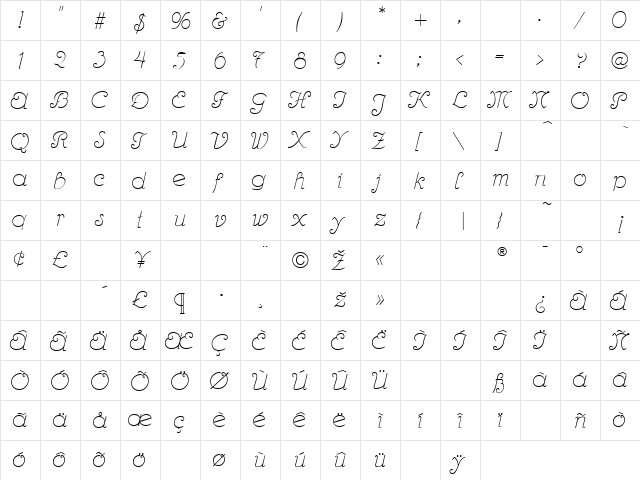
Hanover Regular
Design Context for Hanover Typeface
Hanover is a composed and adaptable typeface that performs quietly and consistently across a wide range of design contexts.
Pro Tip: Pair Hanover with a font of contrasting weight or personality to build a more expressive typographic hierarchy.